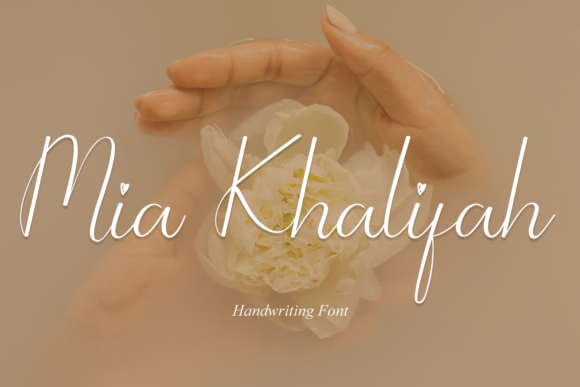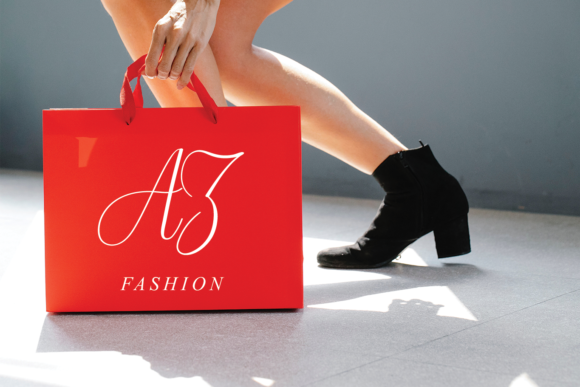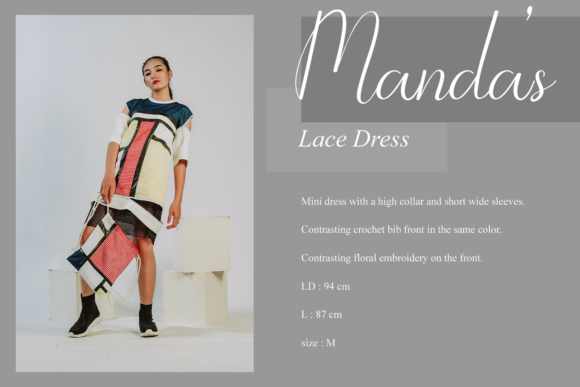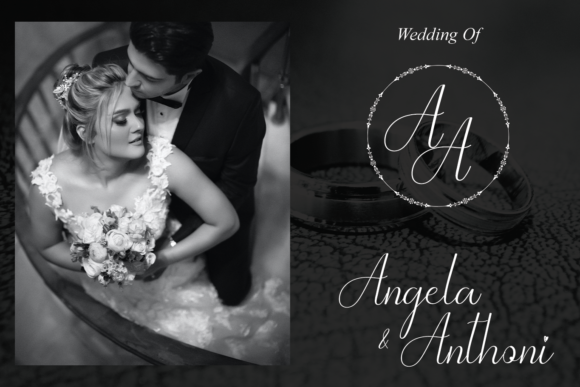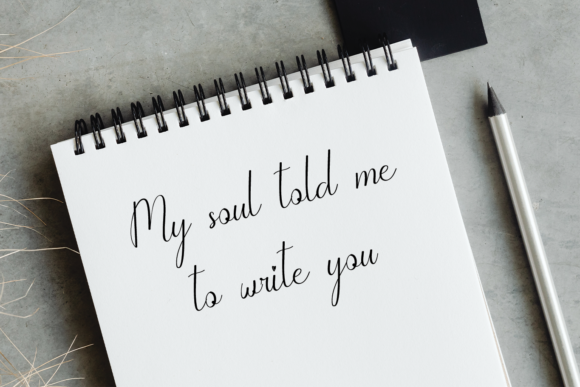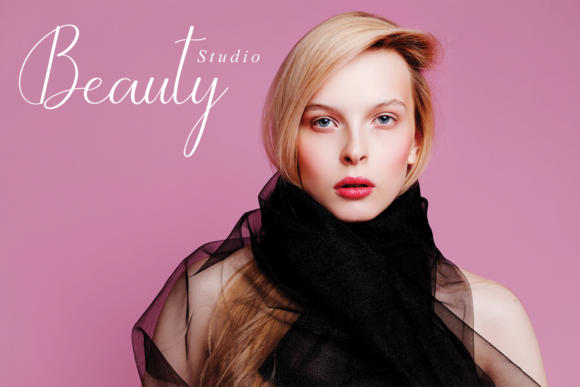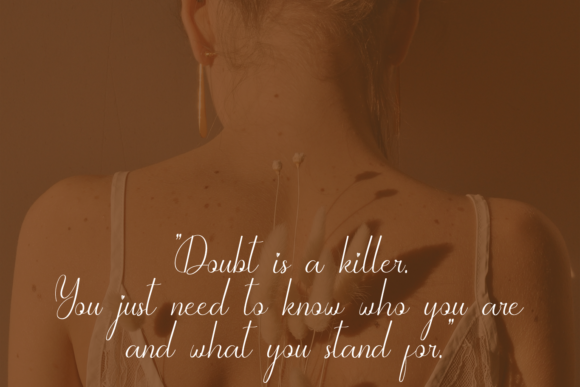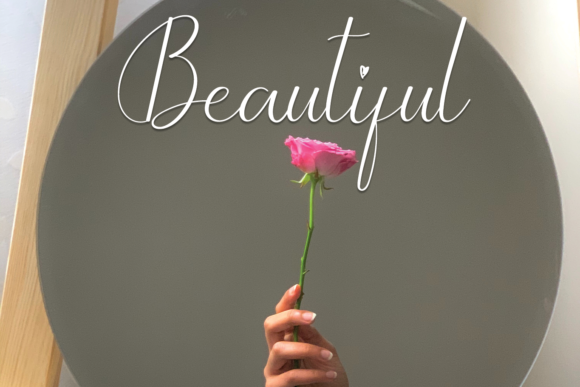
Mia Khalifah Font
About Mia Khalifah Font
“Mia Khalifah” is an exquisite handwritten font that embodies a perfect blend of timeless elegance and contemporary style. This font has been meticulously crafted to capture the essence of classy calligraphy while infusing it with a modern and fresh touch. Its unique characteristics and refined details make it a font that has the potential to become a true favorite among designers and creators.
The font’s classic calligraphic influences are evident in its graceful and flowing letterforms. The smooth curves and delicate strokes showcase the level of care and expertise that went into its creation. These elements evoke a sense of sophistication and charm that is reminiscent of traditional handwritten scripts, adding an air of refinement to any design project it is used in.
Despite its classical origins, “Mia Khalifah” manages to seamlessly incorporate contemporary elements that give it a distinctive and current feel. This fusion of old and new creates a font that is both versatile and engaging, making it suitable for a wide range of creative applications.
Whether used for elegant invitations, stylish logos, sophisticated branding, or any project that requires a touch of refined typography, “Mia Khalifah” delivers with its harmonious balance of classic and modern aesthetics. Its legible and well-defined characters ensure that your message is conveyed clearly, while its unique personality sets it apart from more conventional fonts.
The font’s versatility shines through in its adaptability to various design contexts. Whether your project calls for a formal or more relaxed tone, “Mia Khalifah” effortlessly accommodates your needs. It can elevate the visual appeal of wedding invitations, enhance the professionalism of business materials, and add a touch of luxury to various creative endeavors.
In addition to its aesthetic appeal, “Mia Khalifah” is designed for ease of use. Its well-structured letterforms and thoughtful spacing make it a reliable choice for both digital and print applications. Furthermore, the font’s ability to maintain its elegance and readability across different sizes ensures that it remains effective regardless of the medium or context.
Ultimately, “Mia Khalifah” is a font that has been carefully crafted to stand out and make a lasting impression. Its exquisite design, seamless blend of classic and modern influences, and versatility make it an exceptional choice for designers seeking to elevate their projects to the highest levels. With “Mia Khalifah,” you have a tool that can infuse sophistication and contemporary flair into your designs, creating captivating and memorable visual experiences.